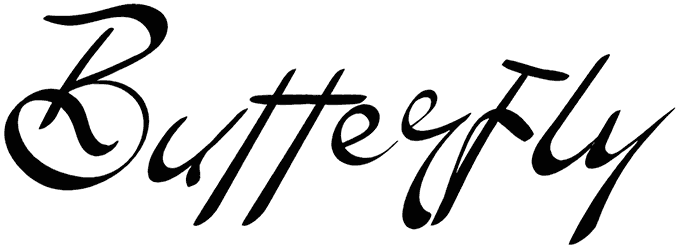
Butterfly Font
Butterfly can be your first choice if you still need to add a font to your list of best handwriting fonts. The elongated and fluid state of this script font can take the pressure off the eyes and, at the same time, bring you natural beauty.
Butterfly can help you a lot if your project needs a personal touch and elaborate beauty. Also, pairing it with its families in the RB library will be an exciting game for you.